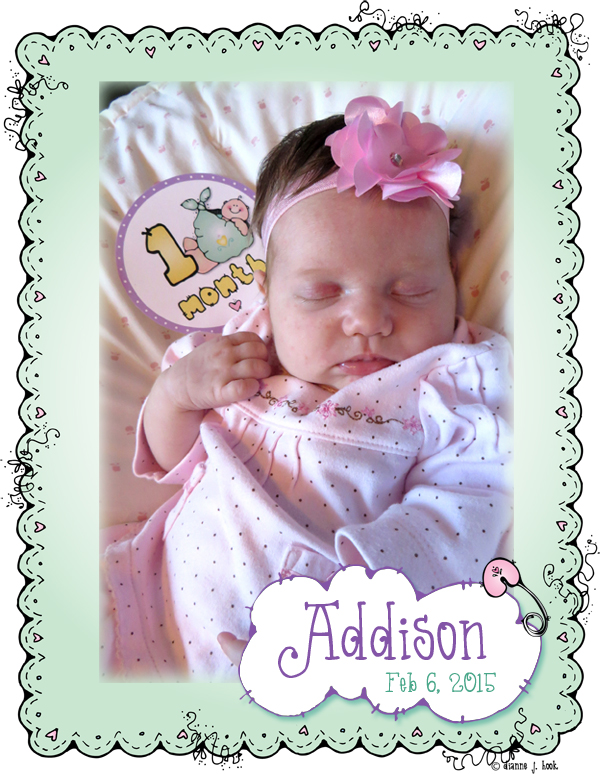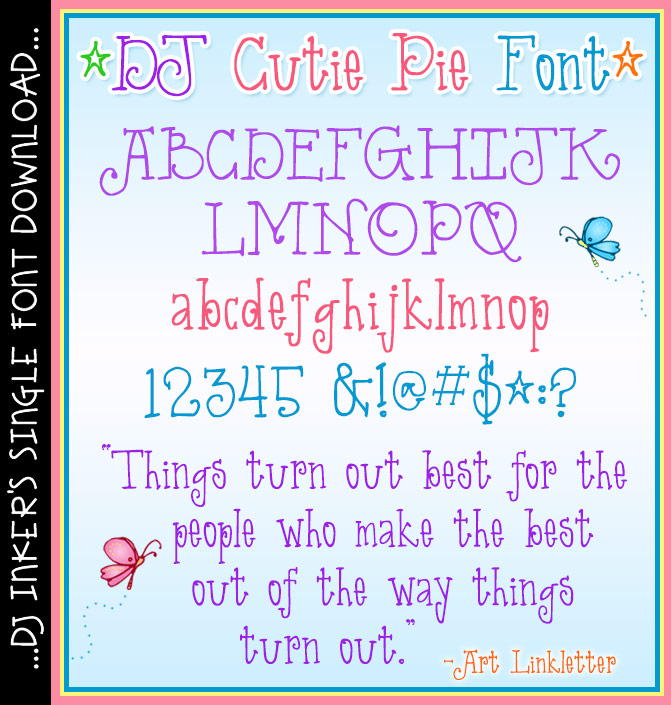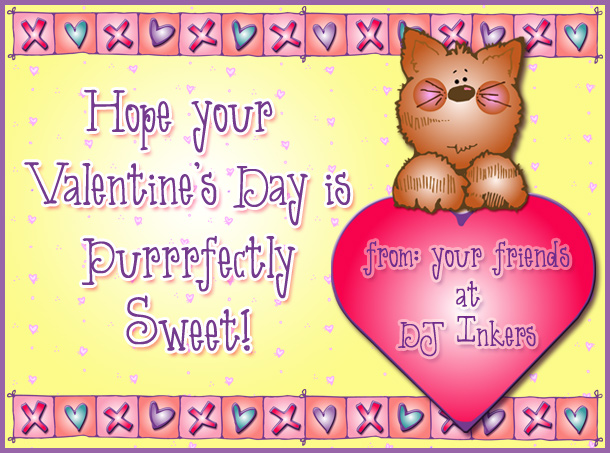
DJ's Cutie Pie font is so darn adorable, you can't help but smile while you type! Perfect for text in any size or color, this versatile font will add creative flair to projects of any kind. Fabulous for girls & swirls, party time, notable quotes and sweet little love notes.